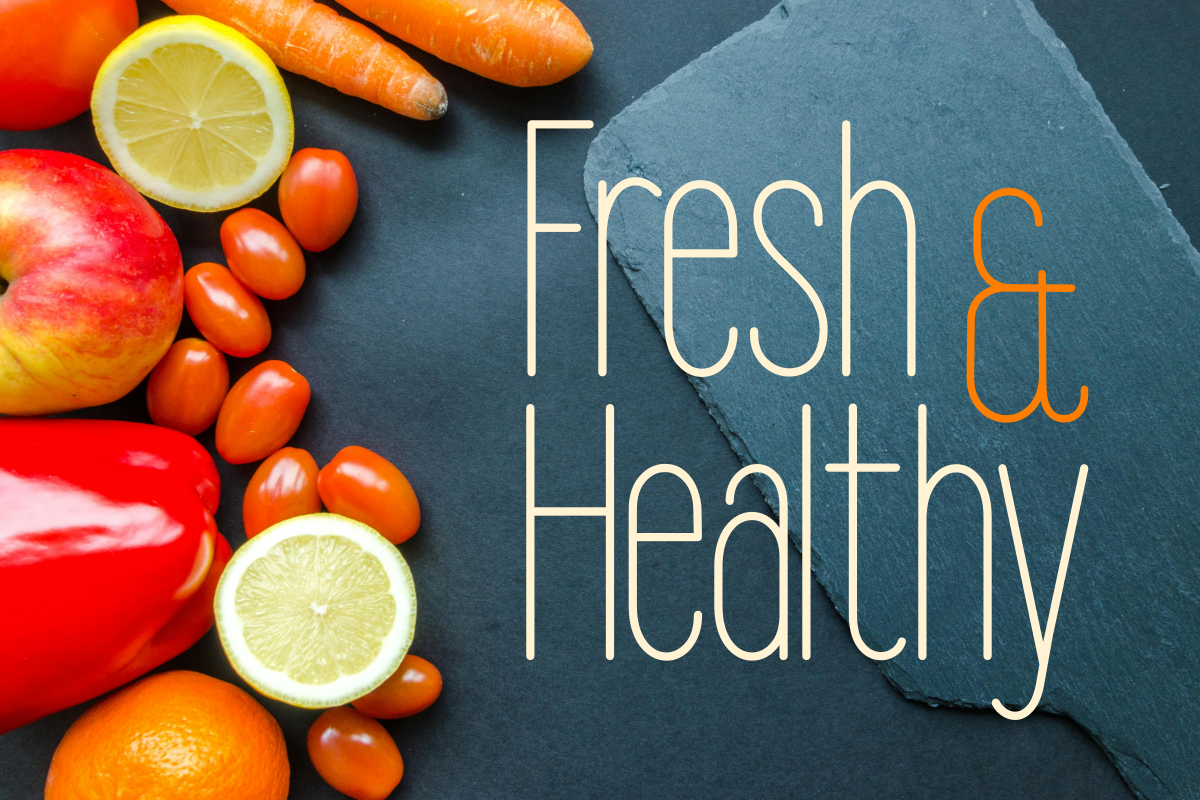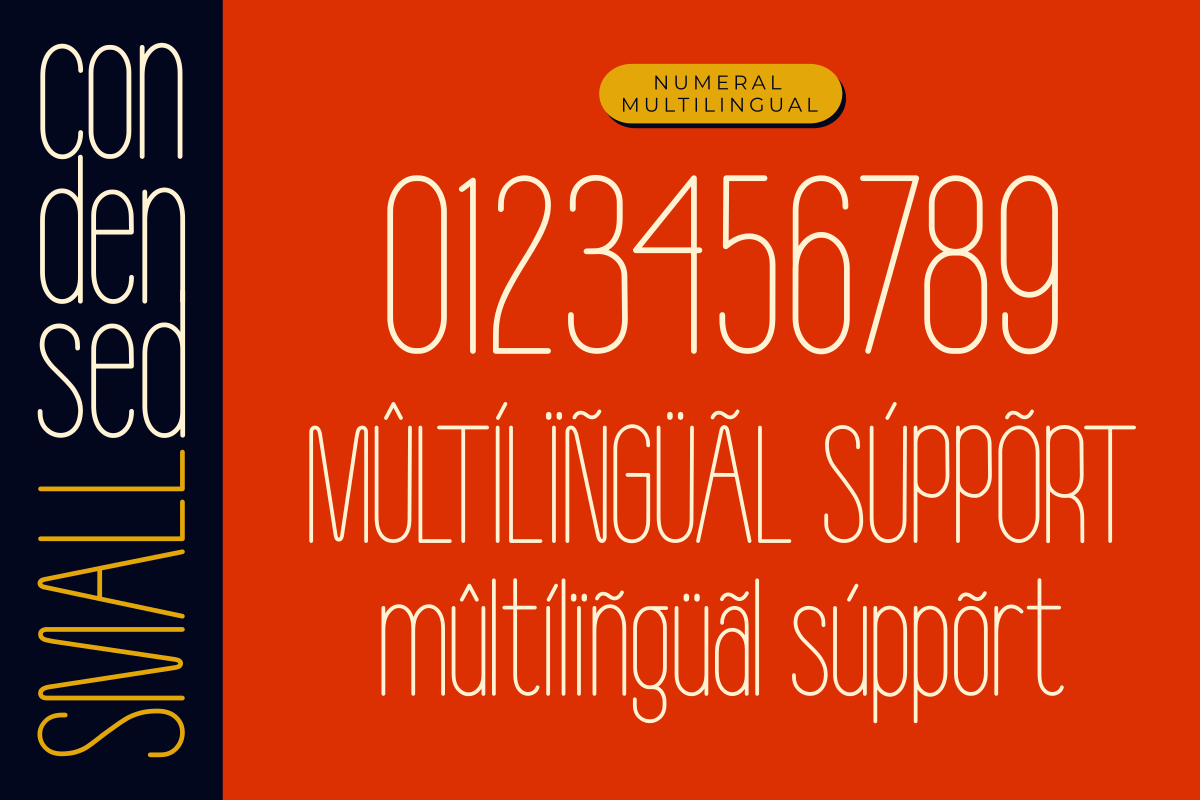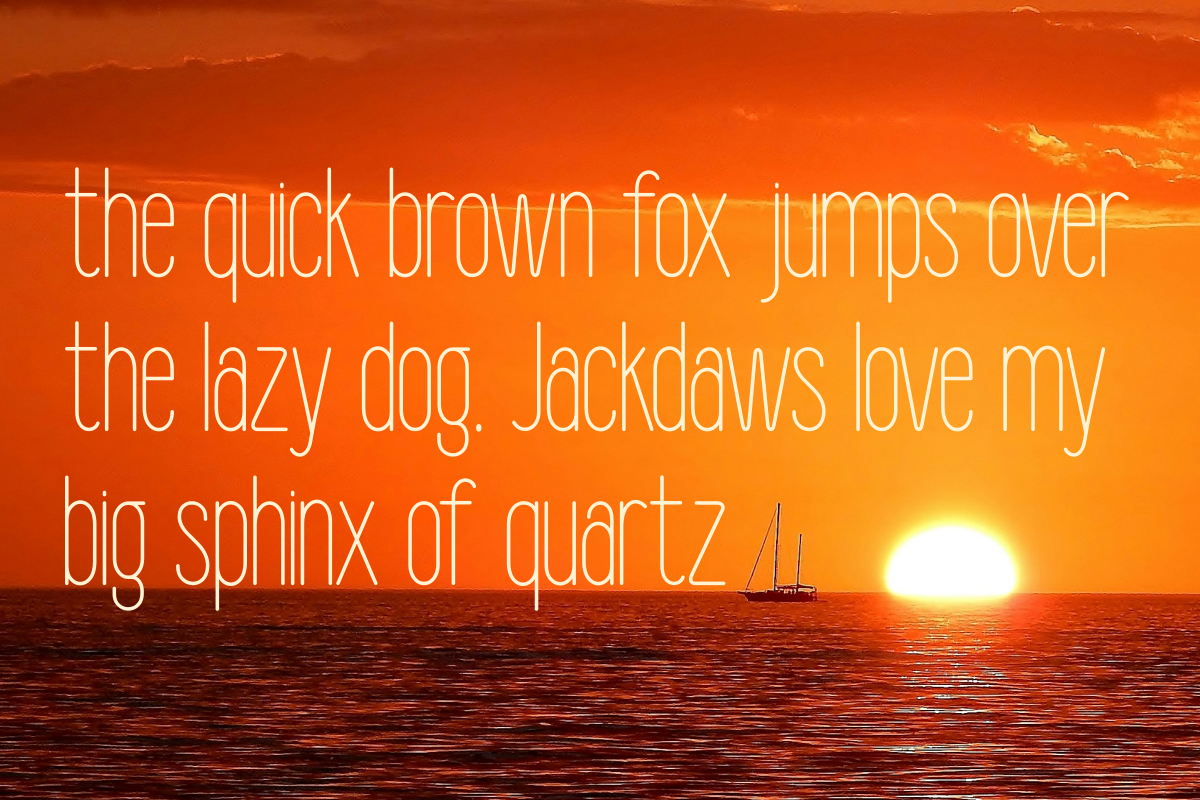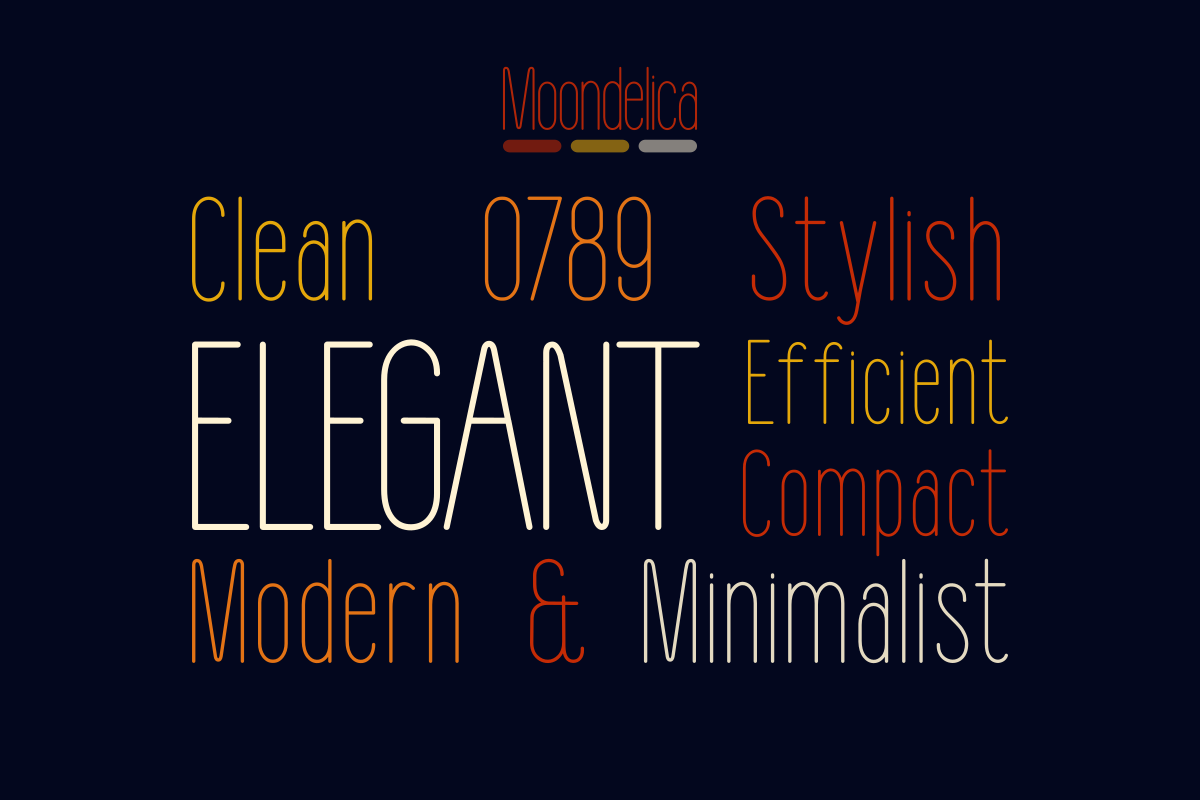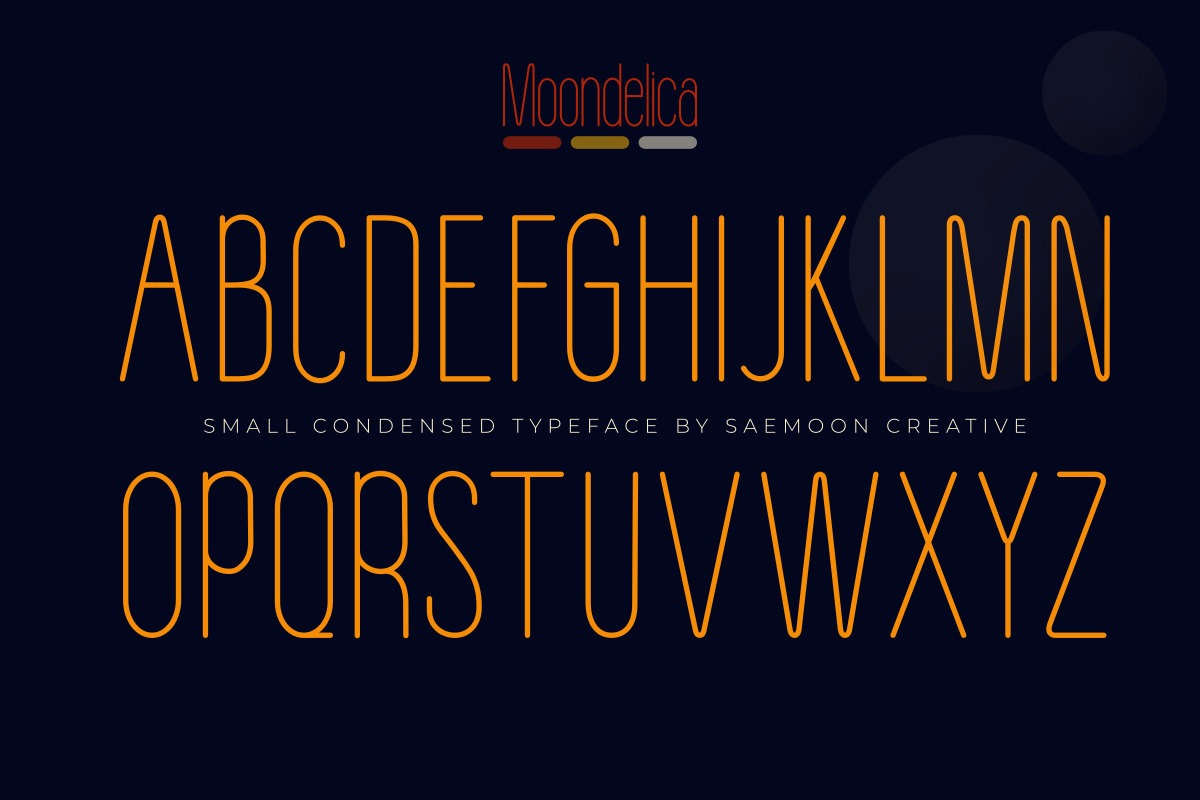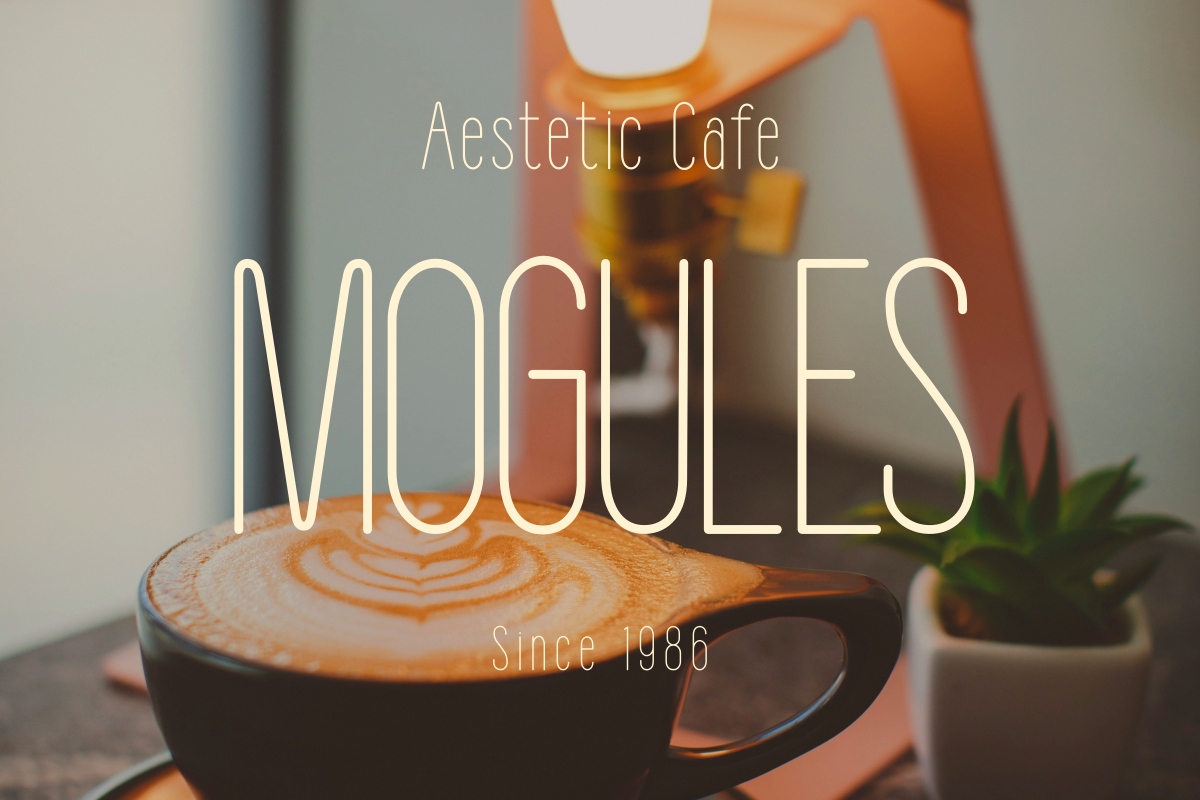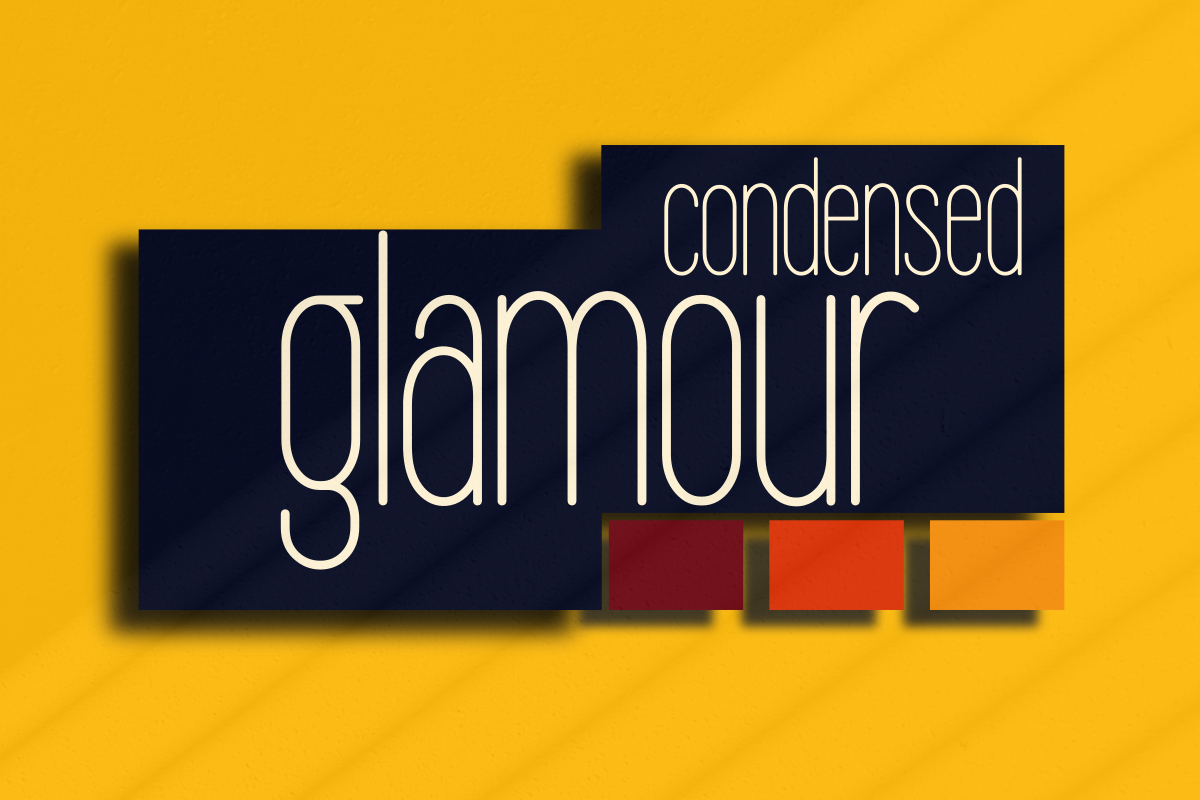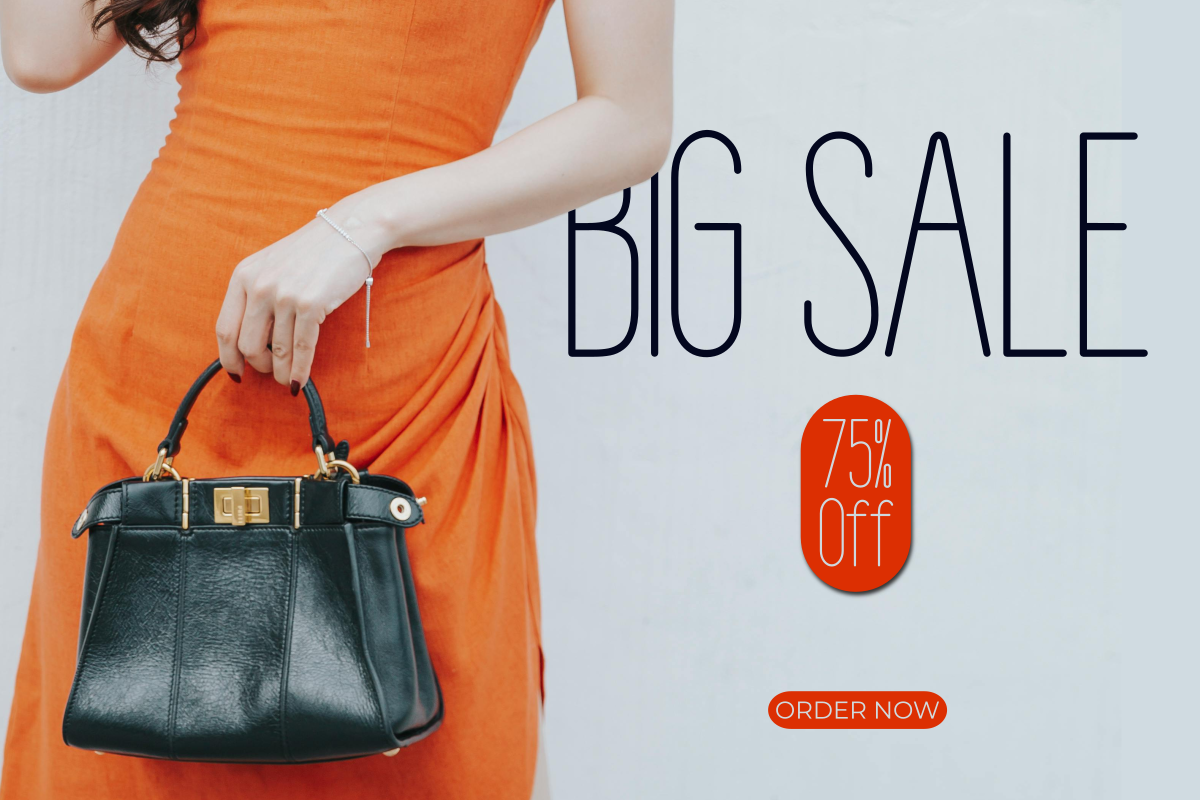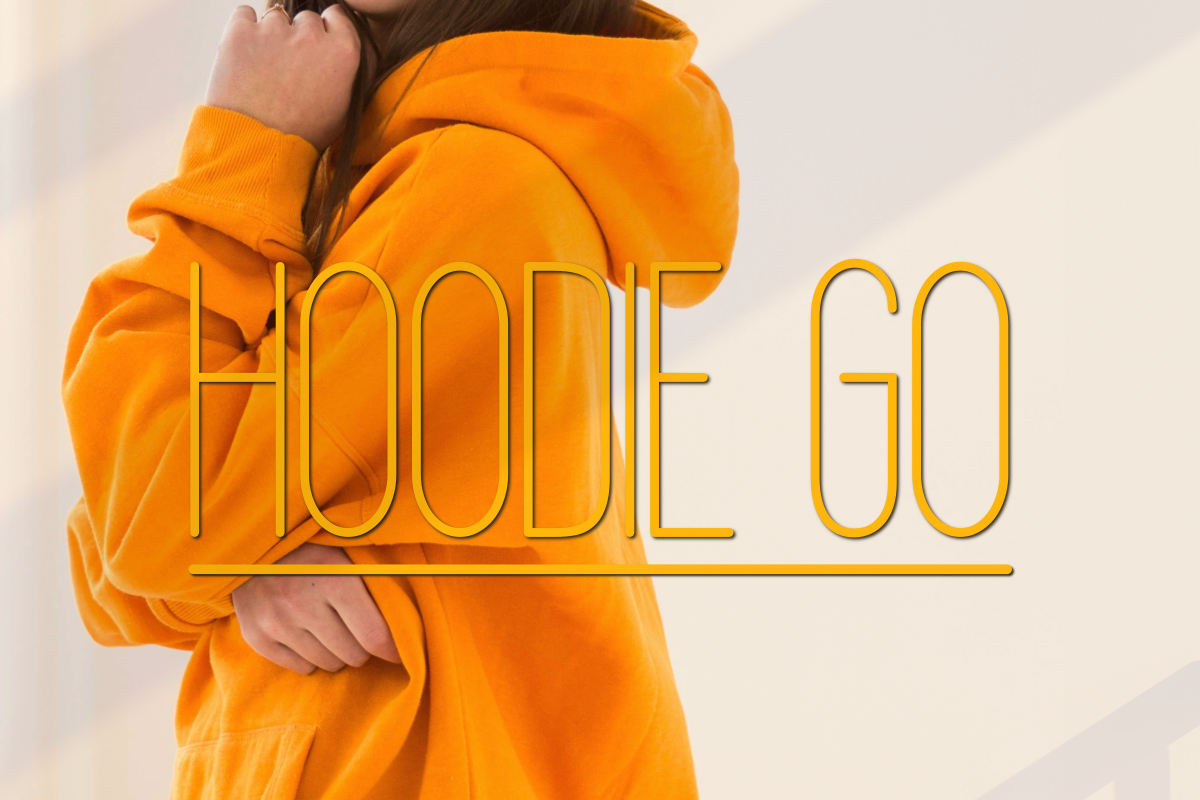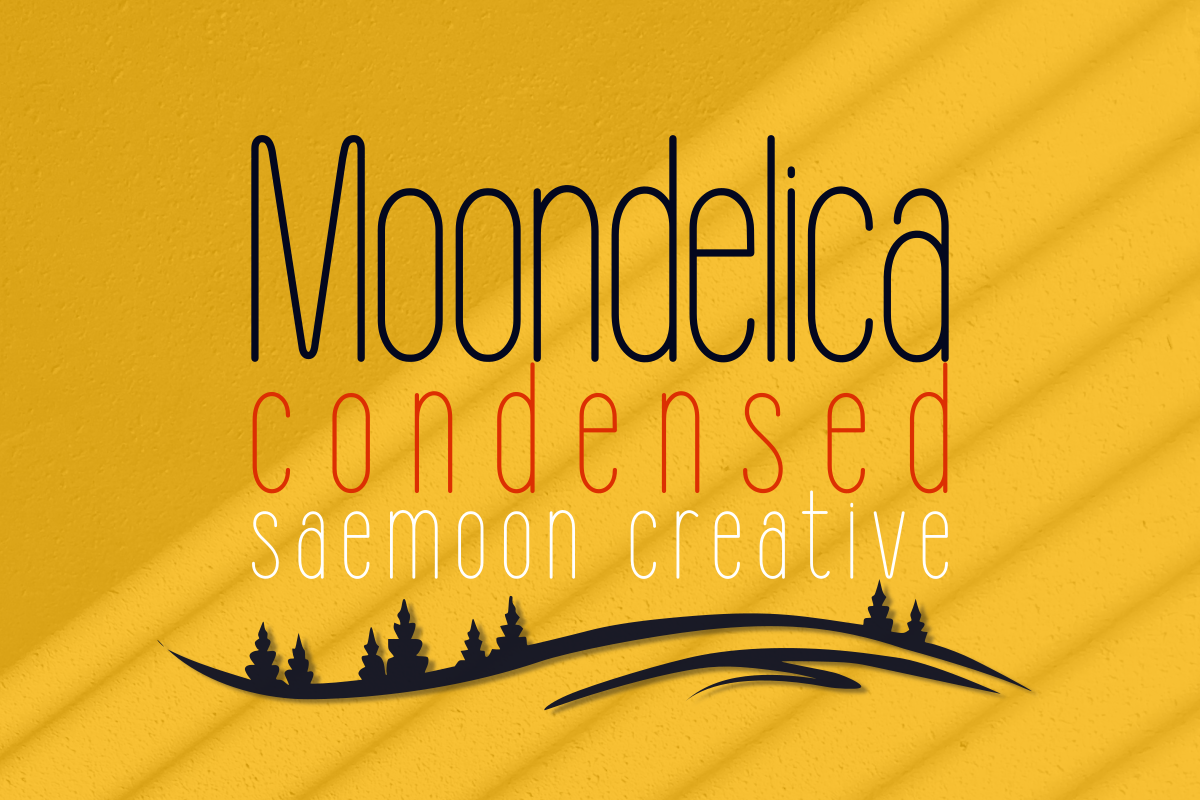
Moondelica
Introducing Moondelica, a chic condensed font that harmoniously fuses elegance with simplicity. Born from high precision designing, it boasts svelte lines and impeccable details, evoking a trendy and magnetic atmosphere. Boasting slender characters perfectly proportioned, Moondelica exudes a lavish, yet minimalist appeal, adaptable for a multitude of creative needs - be it branding, an enticing poster, glossy magazines, or distinctive product packaging. Each alphabetic avatar is meticulously fashioned to serve a balanced aesthetic allure, standing as a perfect pick for projects desiring a blend of artistry and professionalism. Let Moondelica infuse your designs with a suave and up-to-the-minute ambiance. What’s Included : – Moondelica (OTF/TTF/WOFF) – Standard glyphs – Multilingual – Web Font – Works on PC & Mac Simple installations – Symbols and Number Should you encounter any issues or have any queries, rest assured, we’re more than ready to help.